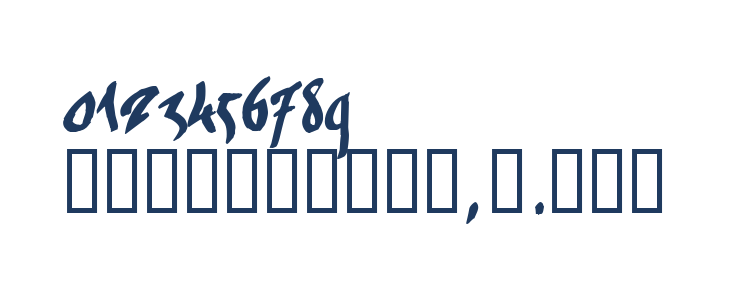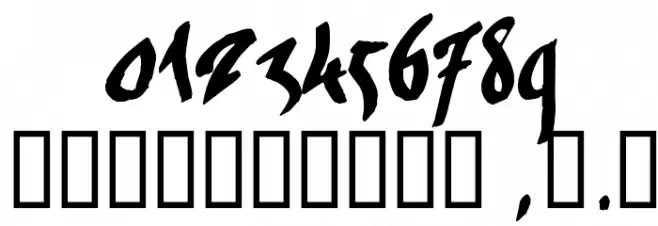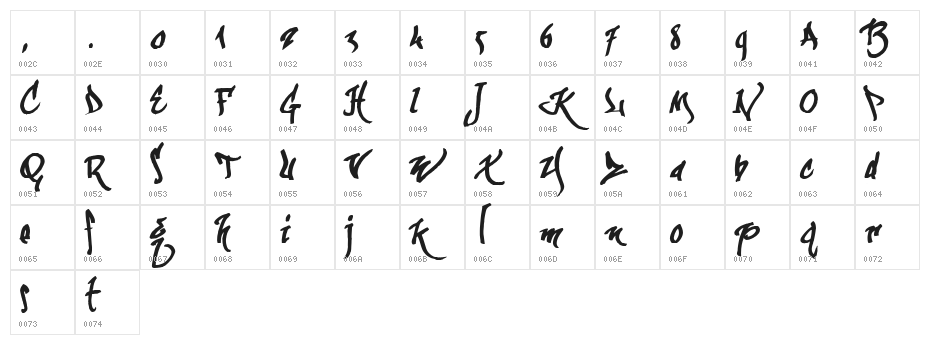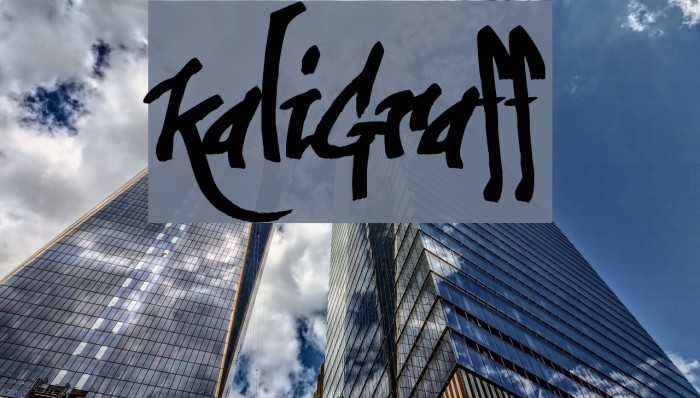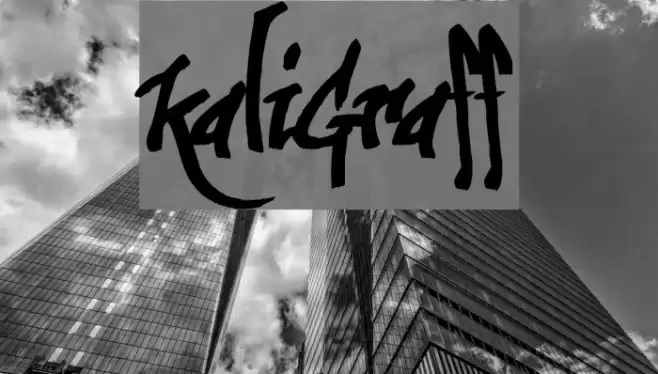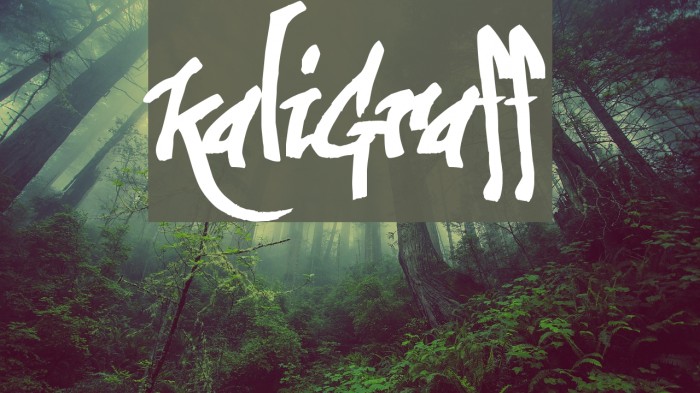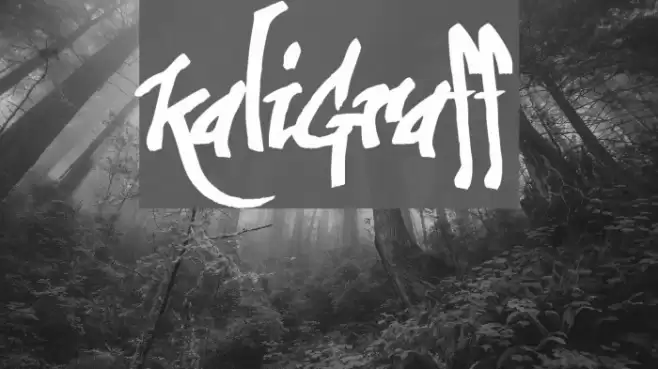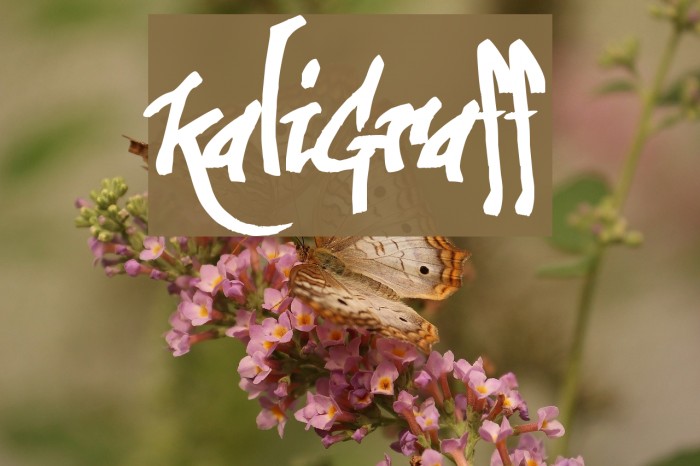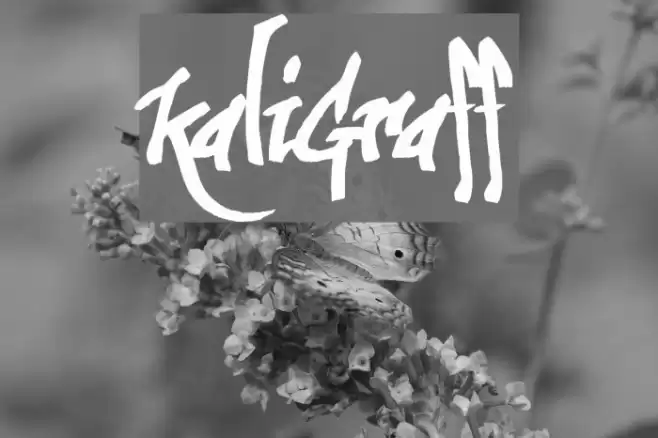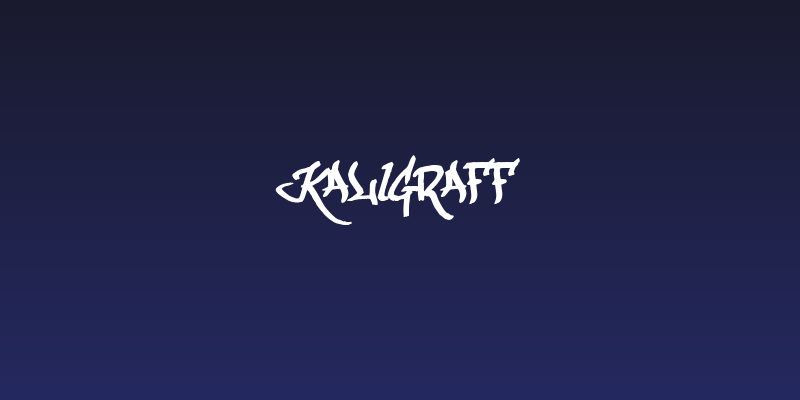
kaliGraff Font
kaliGraff Description
This font exhibits a bold, graffiti-inspired style with a dynamic and energetic appearance. The letters are characterized by sharp angles and fluid strokes, giving them a sense of movement and spontaneity. The uppercase and lowercase letters maintain a consistent style, with exaggerated curves and pointed edges. Numbers and special characters follow the same aesthetic, ensuring a cohesive look across all elements. The font's design is reminiscent of street art, making it ideal for projects that require a bold and expressive touch.
| Proposed Projects | Perfect for urban-themed designs, street art projects, music album covers, and event posters. |